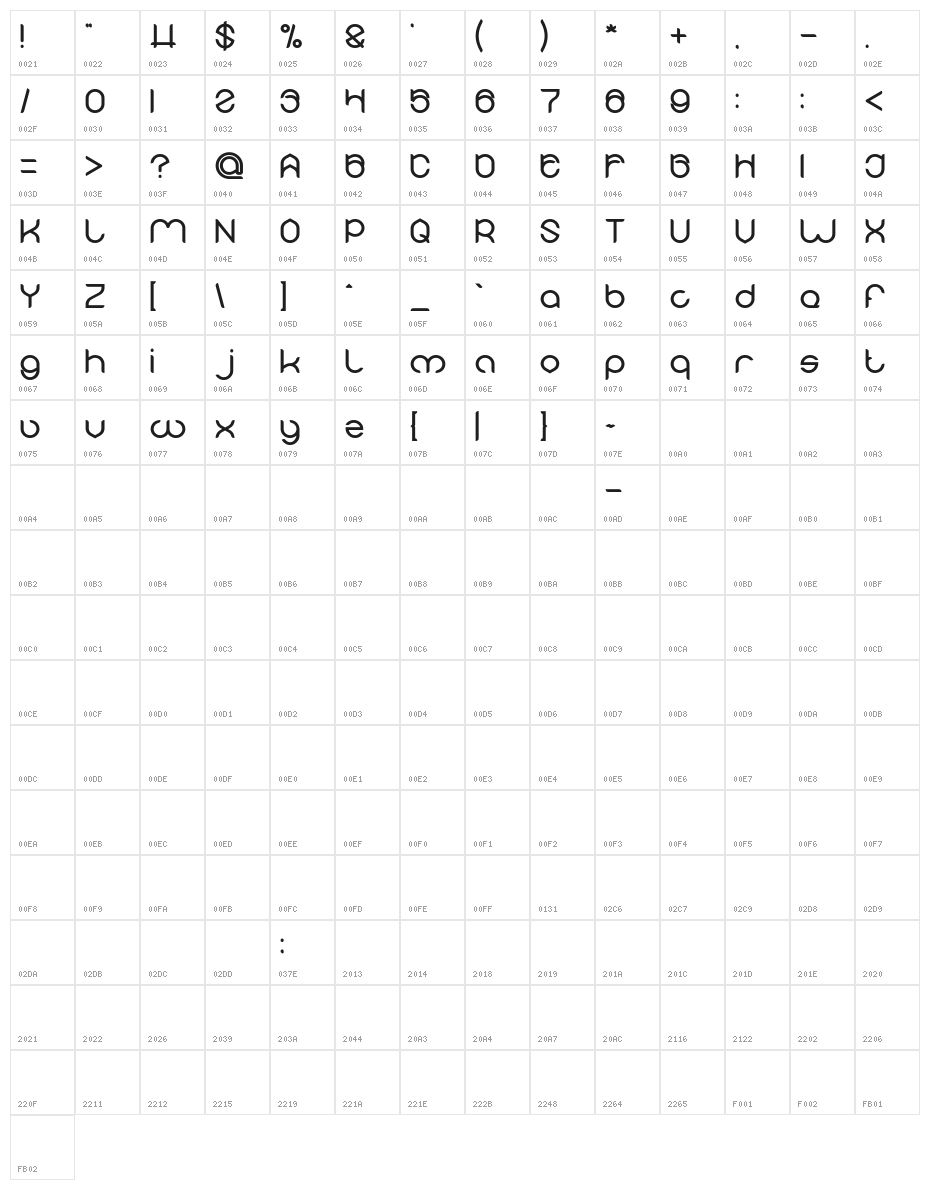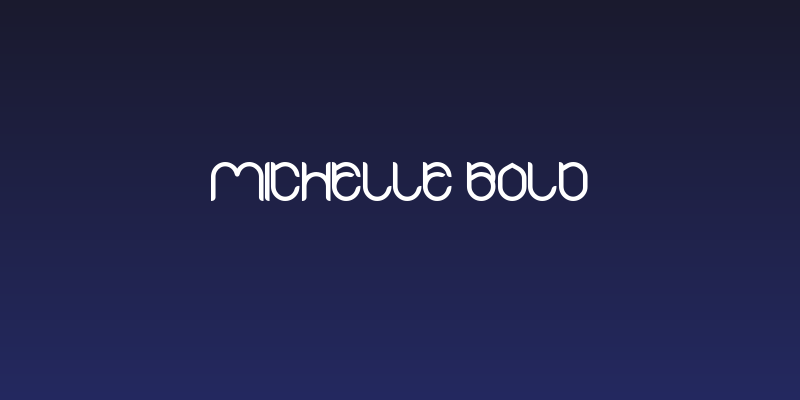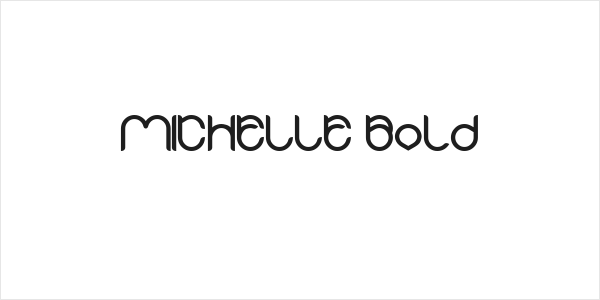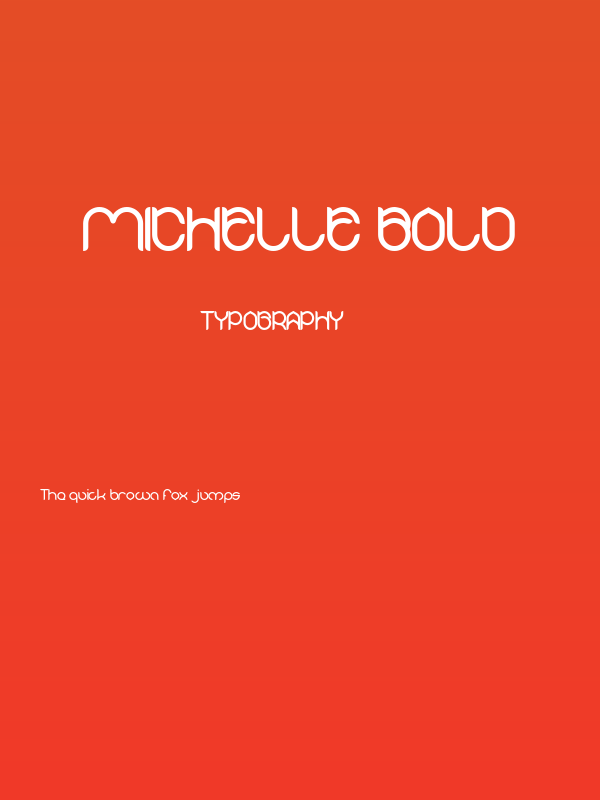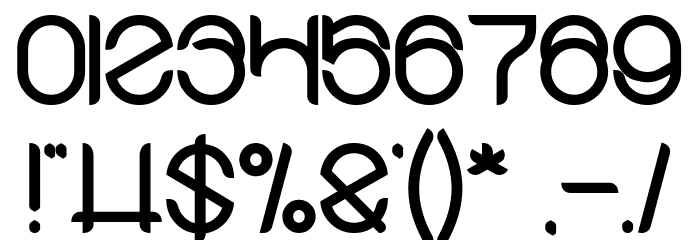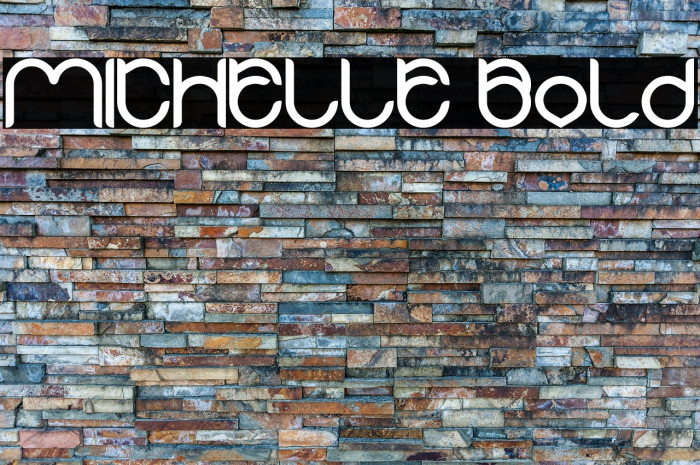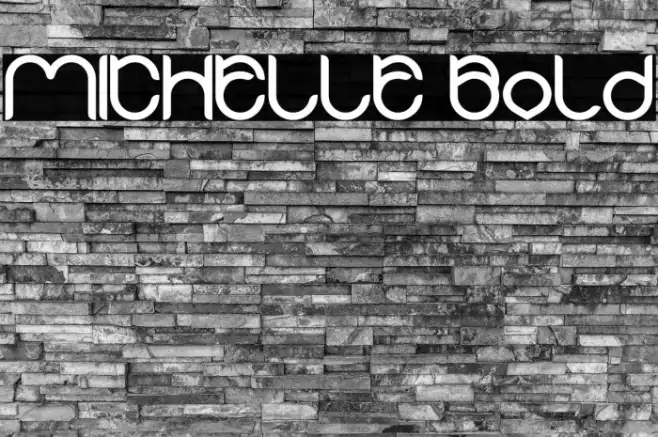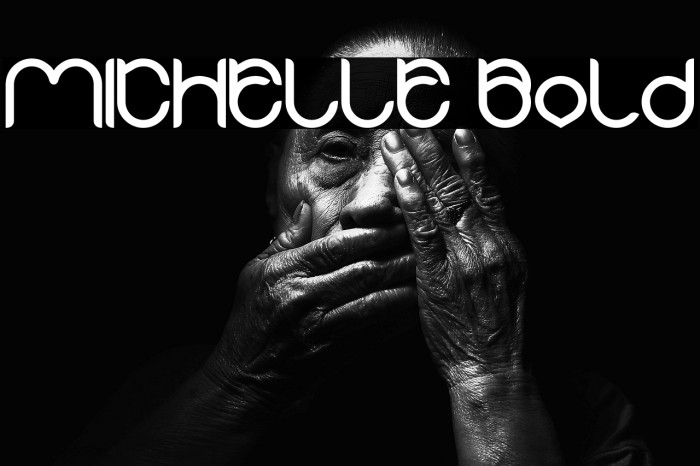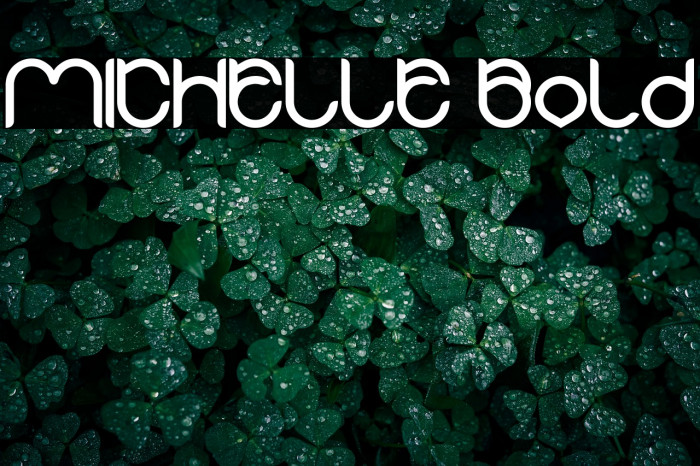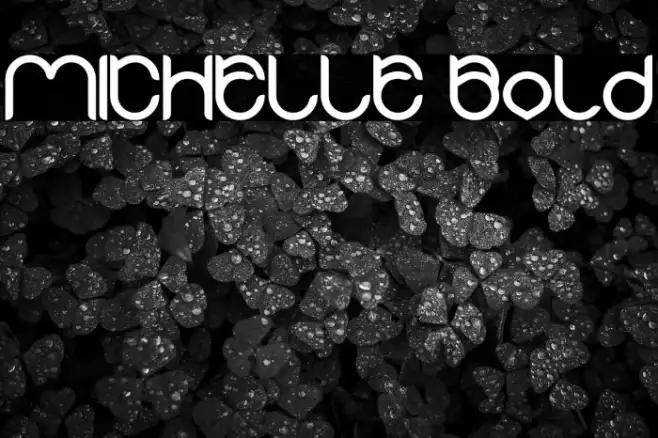
MICHELLE Bold Font
MICHELLE Bold Description
This font features a unique, modern design with rounded edges and a geometric structure. The characters are bold and have a consistent stroke width, giving them a strong presence. The uppercase and lowercase letters maintain a cohesive style, with a playful yet sophisticated appearance. Numbers and special characters are designed to match the overall aesthetic, ensuring uniformity across all elements. The font's distinct style makes it suitable for creative and contemporary projects, offering a fresh take on traditional typography.
| Proposed Projects | Ideal for branding, advertising, posters, and digital media that require a modern and creative touch. |